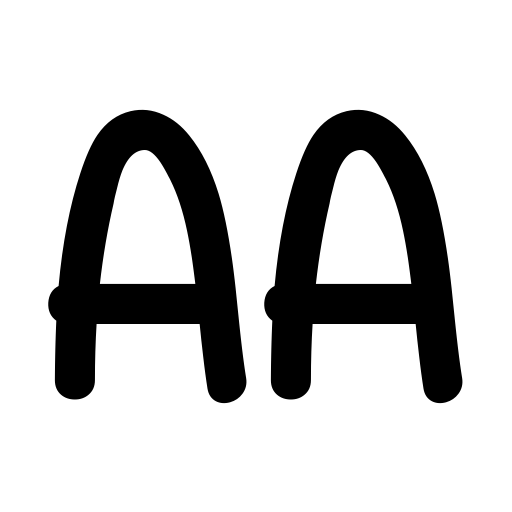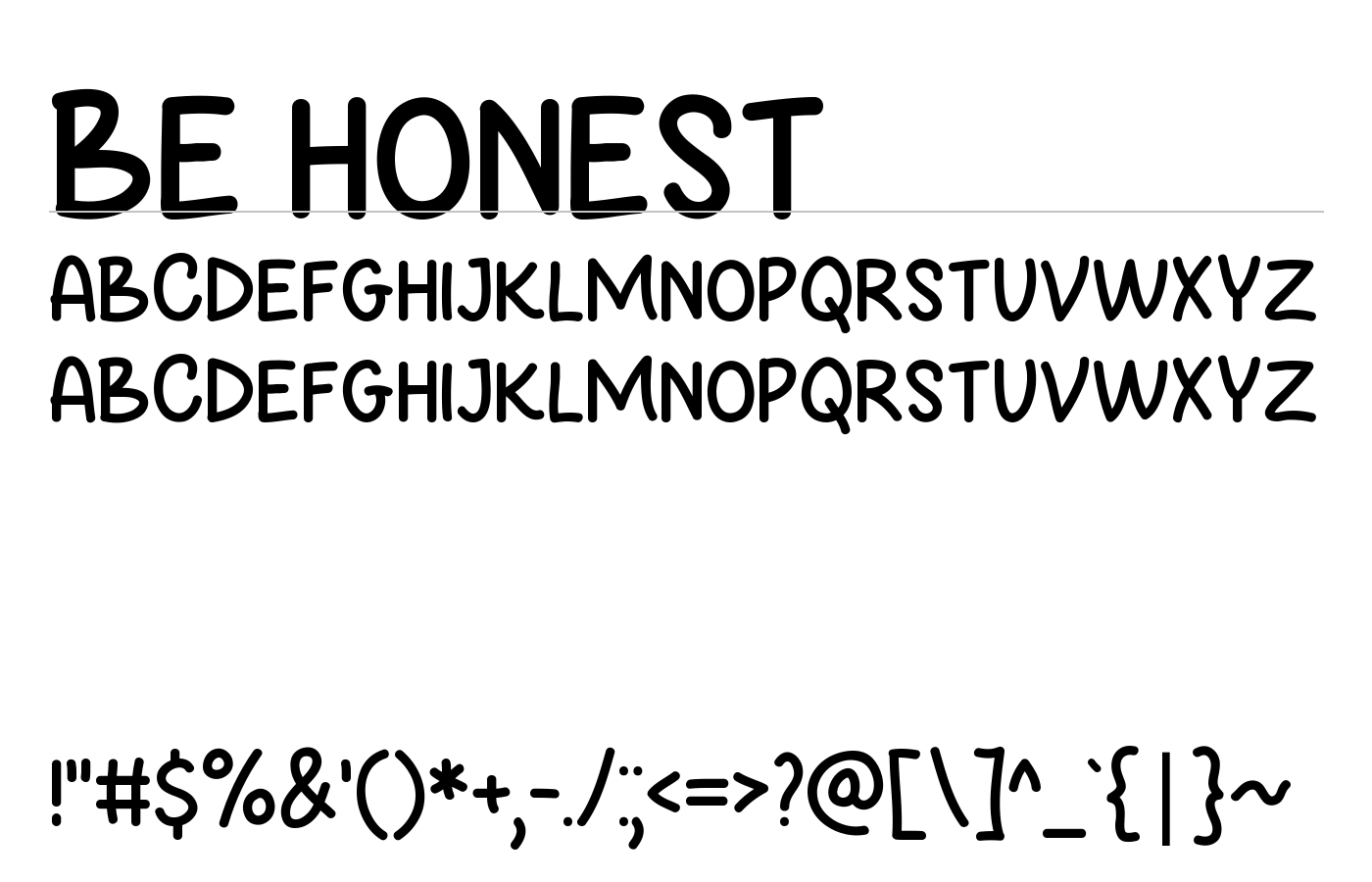
Be Honest is a playful, hand-drawn sans serif font that features rounded, friendly letterforms with consistent casual stroke widths and a slightly tall x-height. Its informal, approachable style makes it perfect for projects that want to convey warmth and personality, such as children’s books, casual branding, or fun editorial headlines. This font’s easy readability and charming character give a genuine, honest feel that connects well with lighthearted and creative designs.
Be Honest Font
About Be Honest Font